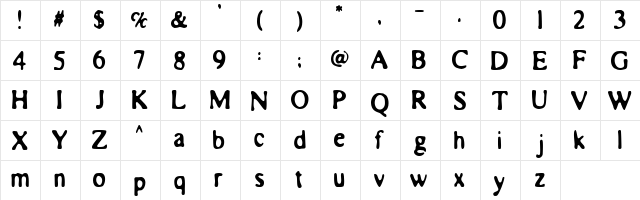
ElectricLiquorGoggles Regular
Design Context for ElectricLiquorGoggles Typeface
ElectricLiquorGoggles channels digital-age aesthetics through its sharp, structured letterforms — ideal for brands that want to signal innovation.
Pro Tip: Use ElectricLiquorGoggles in combination with a neutral sans for body text. Let it define the brand voice in headlines while keeping reading comfortable elsewhere.